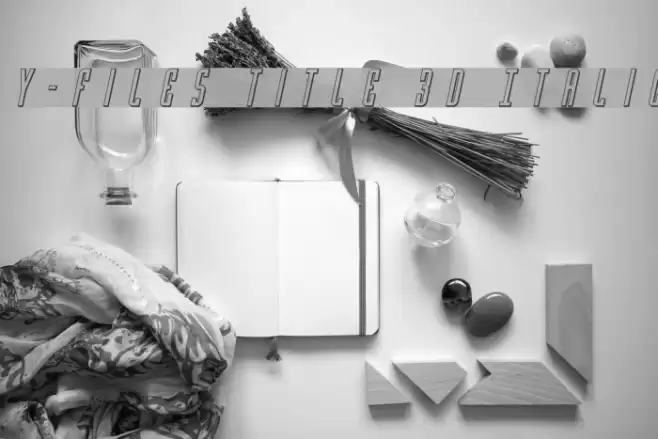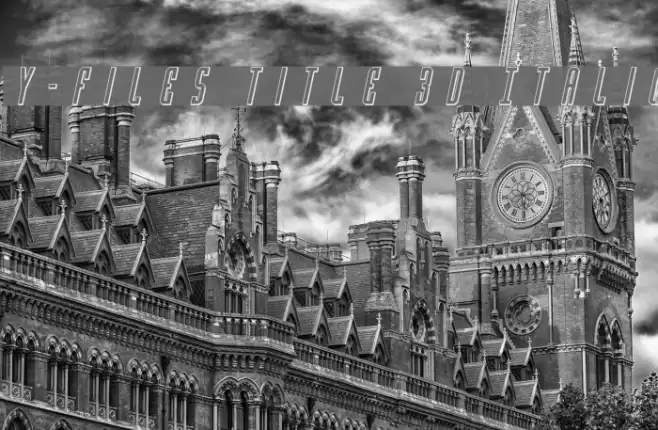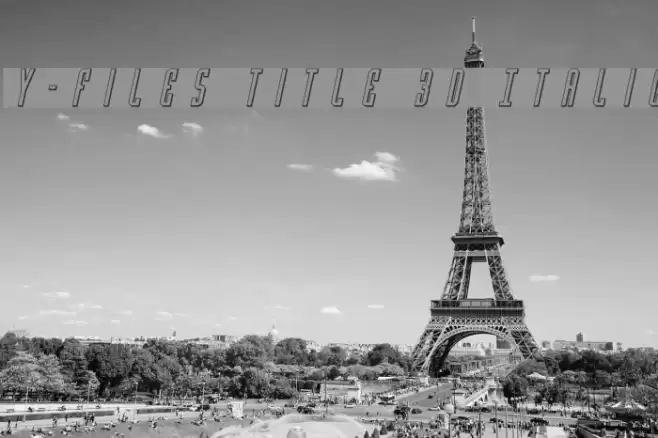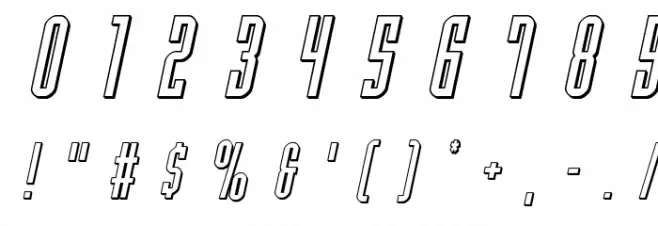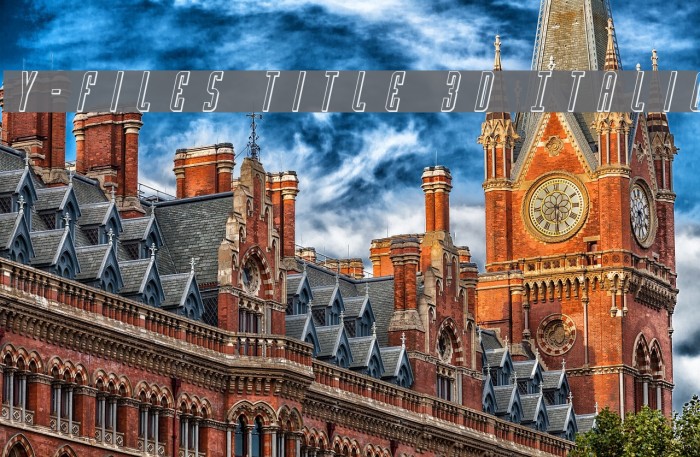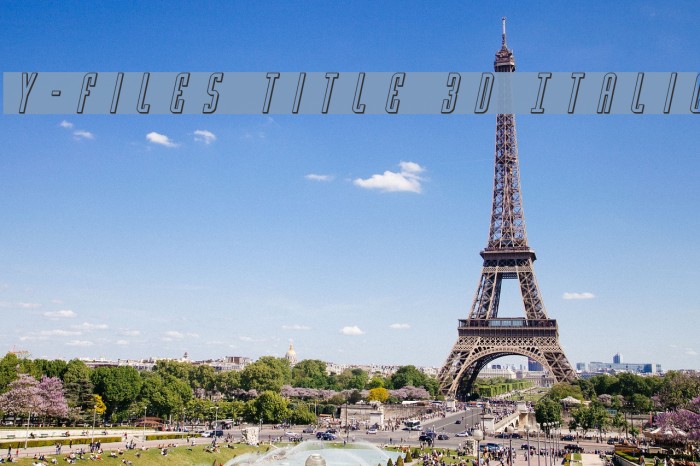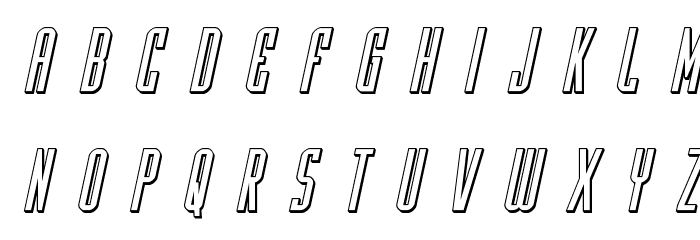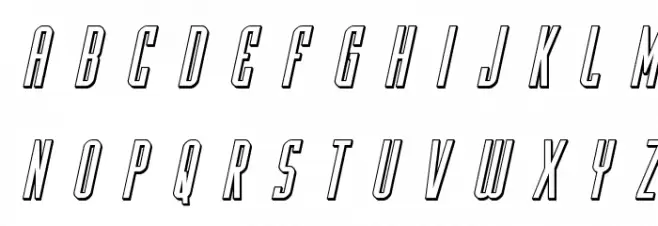
Y-Files Title 3D Italic Font
Y-Files Title 3D Italic Description
This font features a bold, italicized style with a distinct 3D effect. Each character is outlined, creating a shadow-like appearance that adds depth and dimension. The uppercase and lowercase letters maintain a consistent slant, enhancing the italicized look. The numbers and special characters follow the same design principles, ensuring uniformity across all glyphs. The font's geometric structure and sharp angles give it a modern and dynamic feel, making it suitable for eye-catching designs. The spacing between characters is normal, allowing for readability while maintaining the font's unique style.
A bold, italicized font with a 3D outline effect, offering a modern and dynamic appearance from Sci-fi fonts.
- Proposed Projects: Ideal for headlines, posters, logos, and any design requiring a bold, attention-grabbing font.